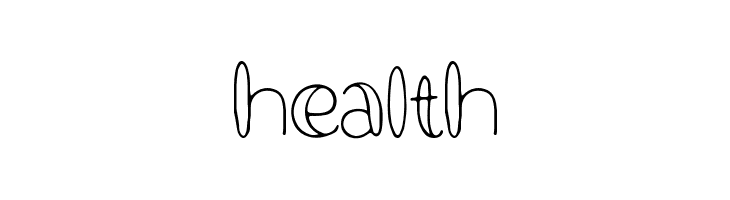
( Fonts by PutraCetol Studio )
A whimsical, Nordic-inspired decorative font with intricate patterns.
( Fonts by PutraCetol Studio )
A bold, decorative font with intricate patterns and whimsical style.
A playful, outline-style font with a hand-drawn aesthetic.
( Fonts by Andrew Barrena )
A playful, handwritten-style font with a casual, comic book feel.
( Fonts by twinletter )
A bold, playful font with thick, rounded characters and a whimsical style.
A bold, vintage serif font with tall, narrow letters and elegant serifs.
A stylish outline font with a blend of serif and sans-serif elements, offering elegance and readability.
A playful, hand-drawn script font with tall, narrow characters and a whimsical style.
( Fonts by VinType )
A flowing, elegant script font with a handwritten style.
A bold slab serif font with strong, block-like serifs and a cohesive design.